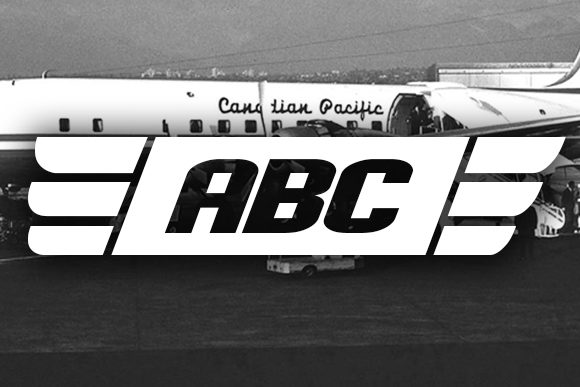
Introduction to Flight 21 Font
Have you ever been working on a creative project, and just as you’re about to make it pop, you realize that the perfect font is missing? For designers, this is a frustrating yet familiar feeling. But what if you stumbled upon a font that not only elevates your design but also adds a touch of nostalgia and adventure to it?
Enter the Flight 21 Font, a stunning aviation-inspired decorative font that’s sure to take your design game to new heights. With its bold appearance and unique design elements, this font is a must-have for any creative project. Whether you’re working on a travel brochure, a aviation-themed website, or a design that needs a touch of whimsy, the Flight 21 Font is the perfect design resource to make your vision a reality.
- Perfect for use in creative projects that require a unique and eye-catching font, such as graphic design, web design, and digital art.
Honest Review: Flight 21 Font
As a designer, I’m always on the lookout for high-quality design resources to elevate my creative projects. Recently, I stumbled upon the Flight 21 Font, and I must say, it’s been a game-changer.
Here’s what I love about it:
- ✨ The font is sleek and modern, making it perfect for a wide range of design projects.
- ✨ The font is highly customizable, allowing me to easily adjust the style to fit my needs.
However, I do have a few caveats:
- ⚠️ The font is not ideal for use on a transparent background, as it may not display as intended.
- ⚠️ The font is not as extensive as some other options, with a limited character set.
Overall, I’m really impressed with the Flight 21 Font. It’s a solid addition to any designer’s toolkit, and I’ve been using it consistently in my latest projects. If you’re looking for a high-quality font that’s easy to work with, I’d definitely recommend giving it a try.
Tips for Getting the Most Out of Flight 21 Font
For a creative project, use the Flight 21 Font with a transparent background to add depth and visual interest. You can also pair the font with a high-quality image to create a stunning design.